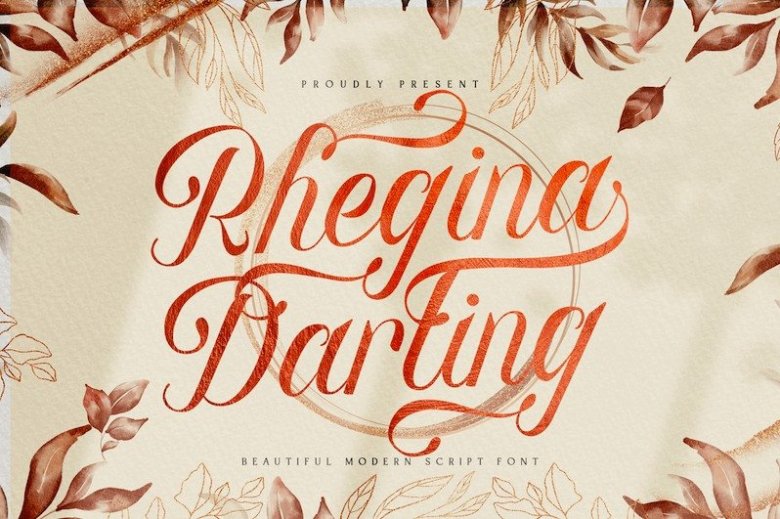
Rhegina Darling Font
Rhegina Darling Calligraphy Font, designed by GoldenGraph Design is a modern, feminine hand-drawn font, with a variety of beginning and ending swashes. Rhegina Darling Calligraphy can be used easily and simply because there are many features in it which contain a complete set of uppercase and lowercase letters, large variety of punctuation marks, numbers, and multilingual support.